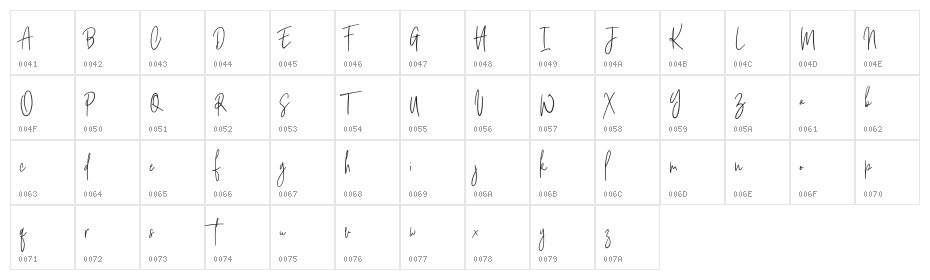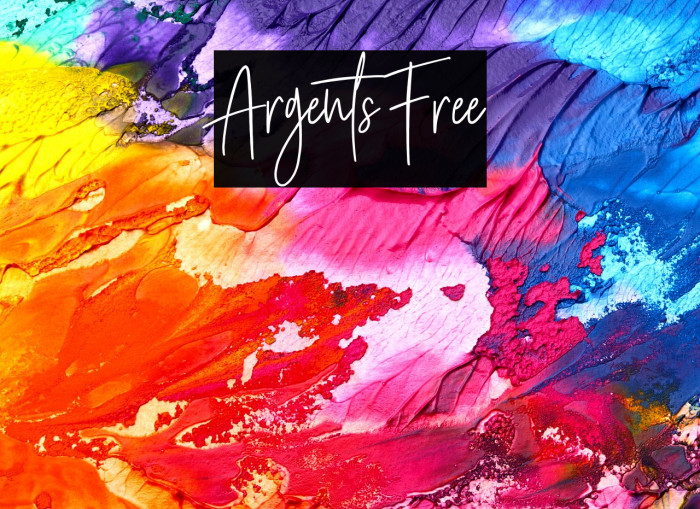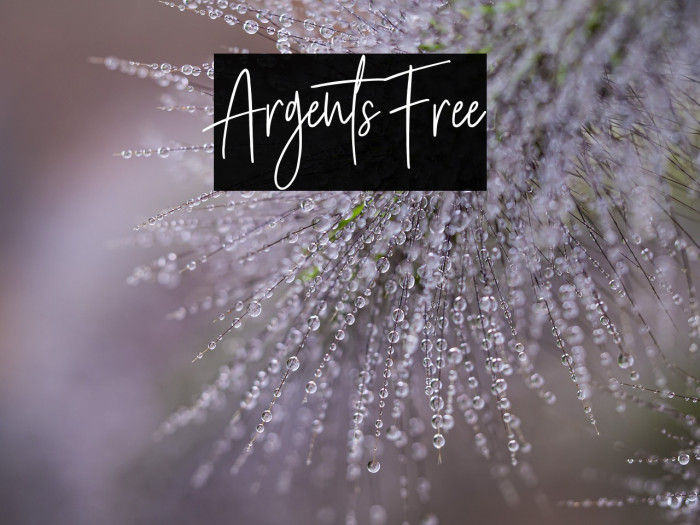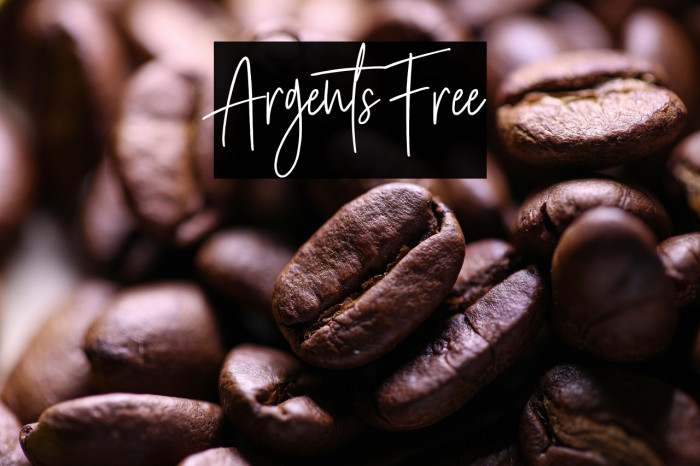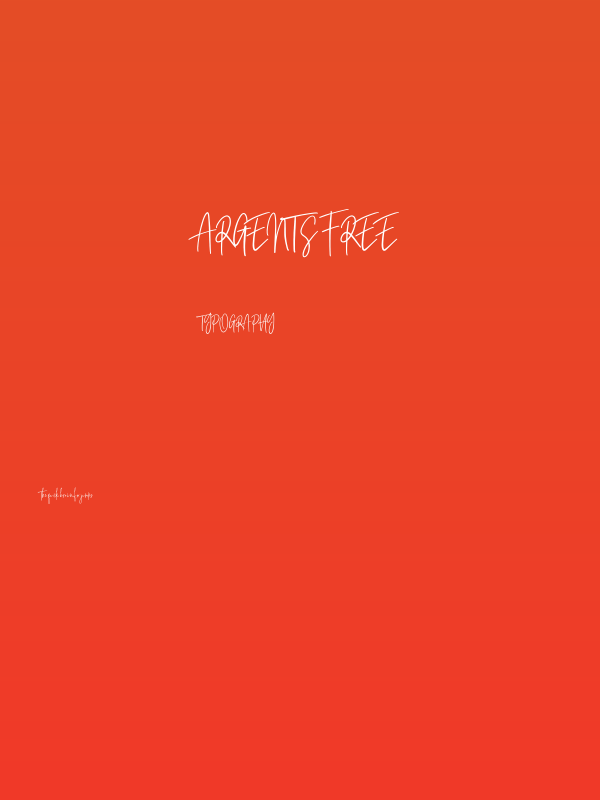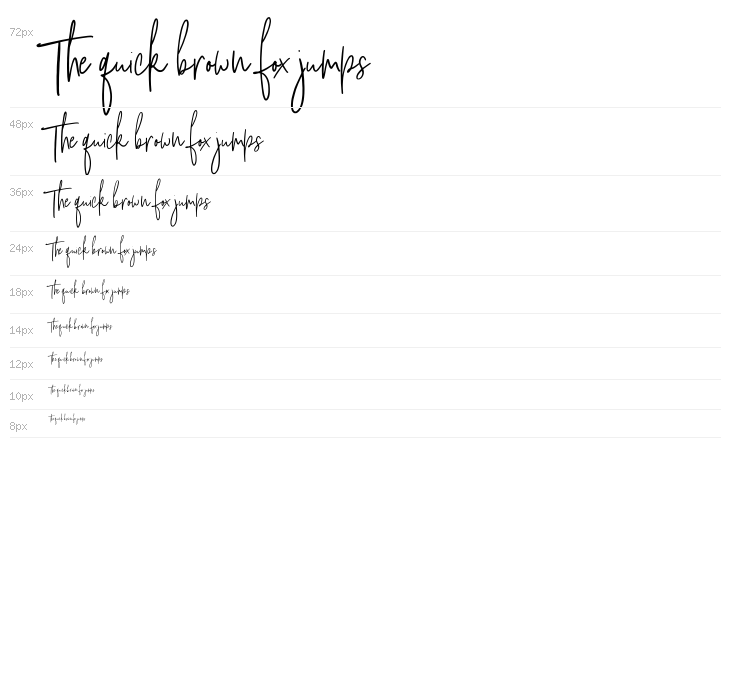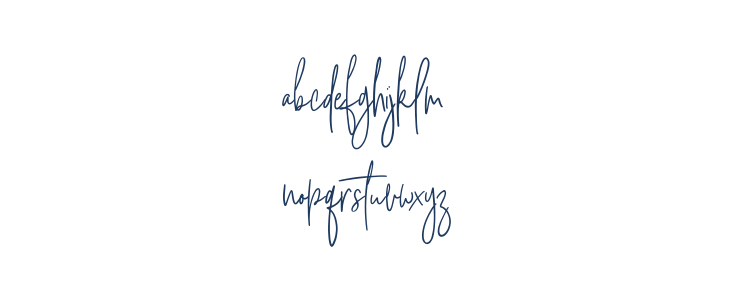
Argents Free Font
Argents Free Description
This font features a lively and expressive handwritten style, characterized by its fluid and dynamic strokes. The letters are elongated and slightly slanted, giving a sense of movement and energy. The uppercase and lowercase letters maintain a consistent style, with a playful and casual appearance. The font includes a full set of uppercase and lowercase letters, numbers, and a selection of special characters. Its unique personality makes it suitable for creative and informal projects, where a personal touch is desired.
Overall StyleCasual and expressive
Use CaseLogos, Invitations, Social Media Graphics
Proposed ProjectsIdeal for greeting cards, invitations, personal branding, and creative social media graphics.